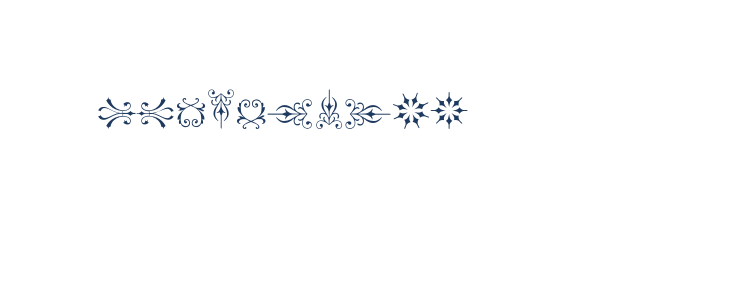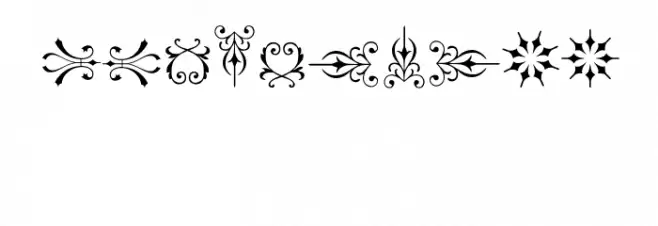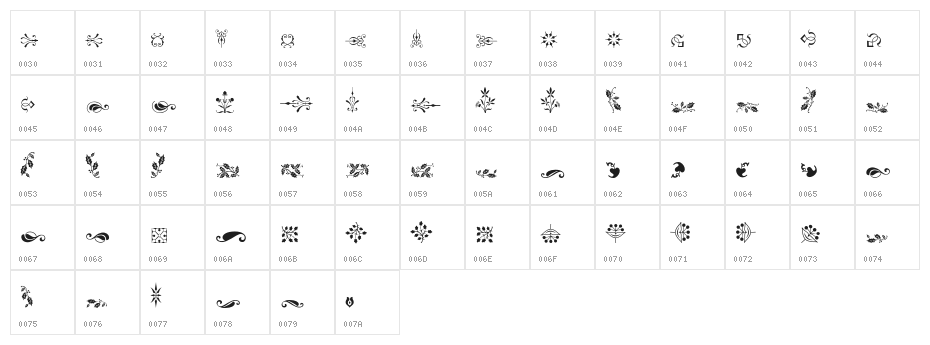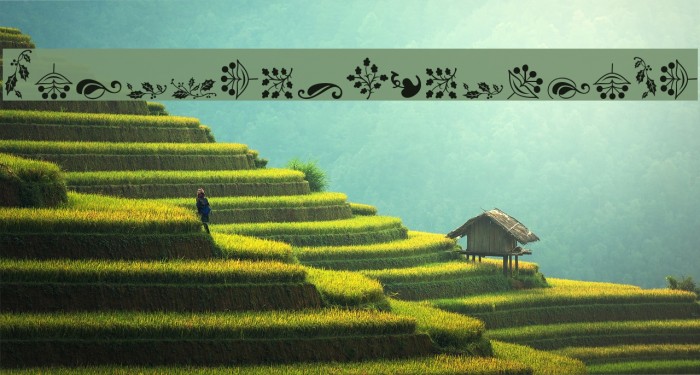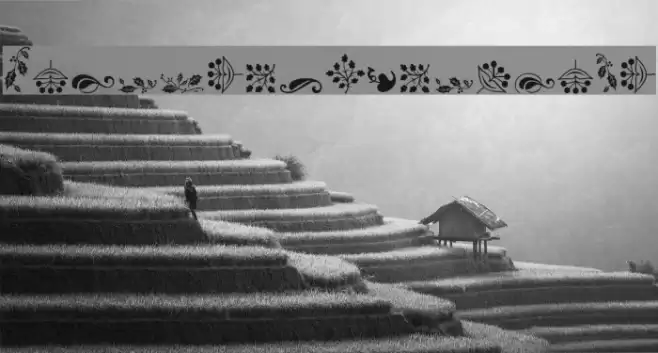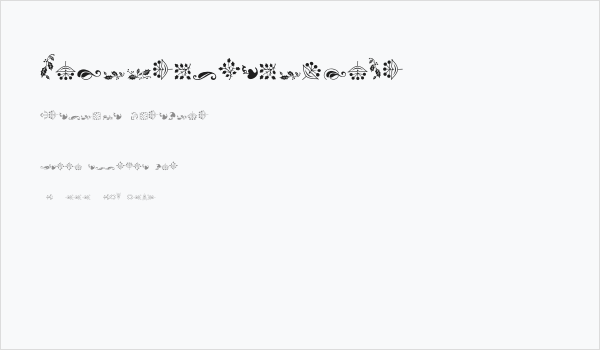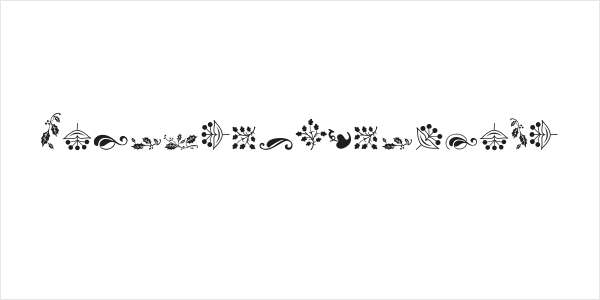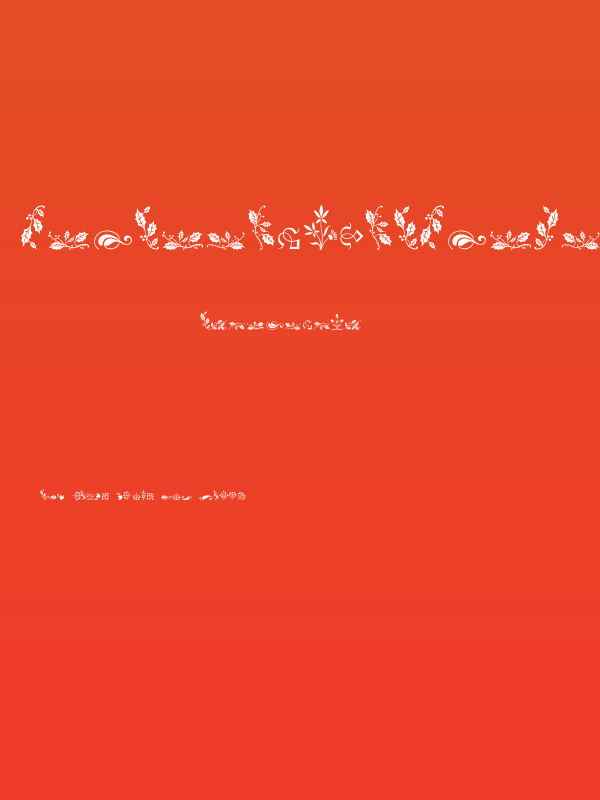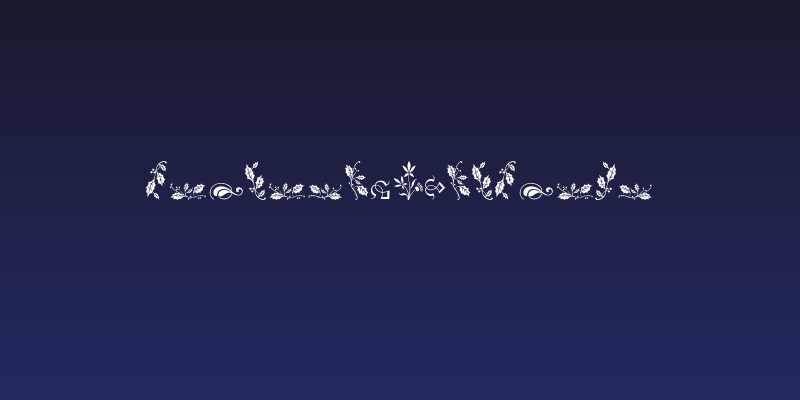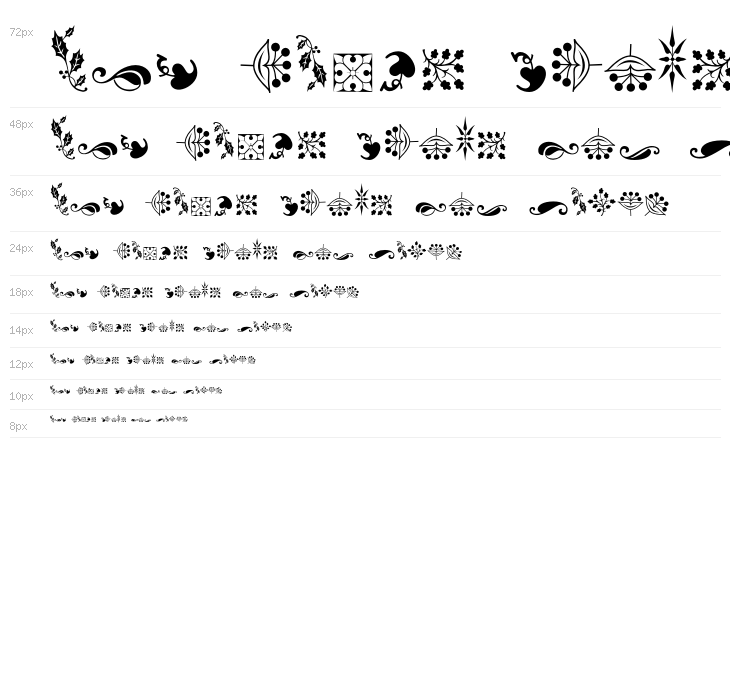
SoftOrnamentsFour Font
SoftOrnamentsFour Description
A decorative collection of ornate floral and ornamental glyphs, featuring intricate swirls, leaves, flowers, and symmetrical motifs. The designs are highly stylized and detailed, suitable for embellishments and borders rather than standard text.
| Overall Style | Vintage, Decorative |
| Use Case | Borders, embellishments, ornamental dividers, decorative accents. |
| Proposed Projects | Wedding invitations, certificates, decorative borders, vintage packaging, book covers, greeting cards. |